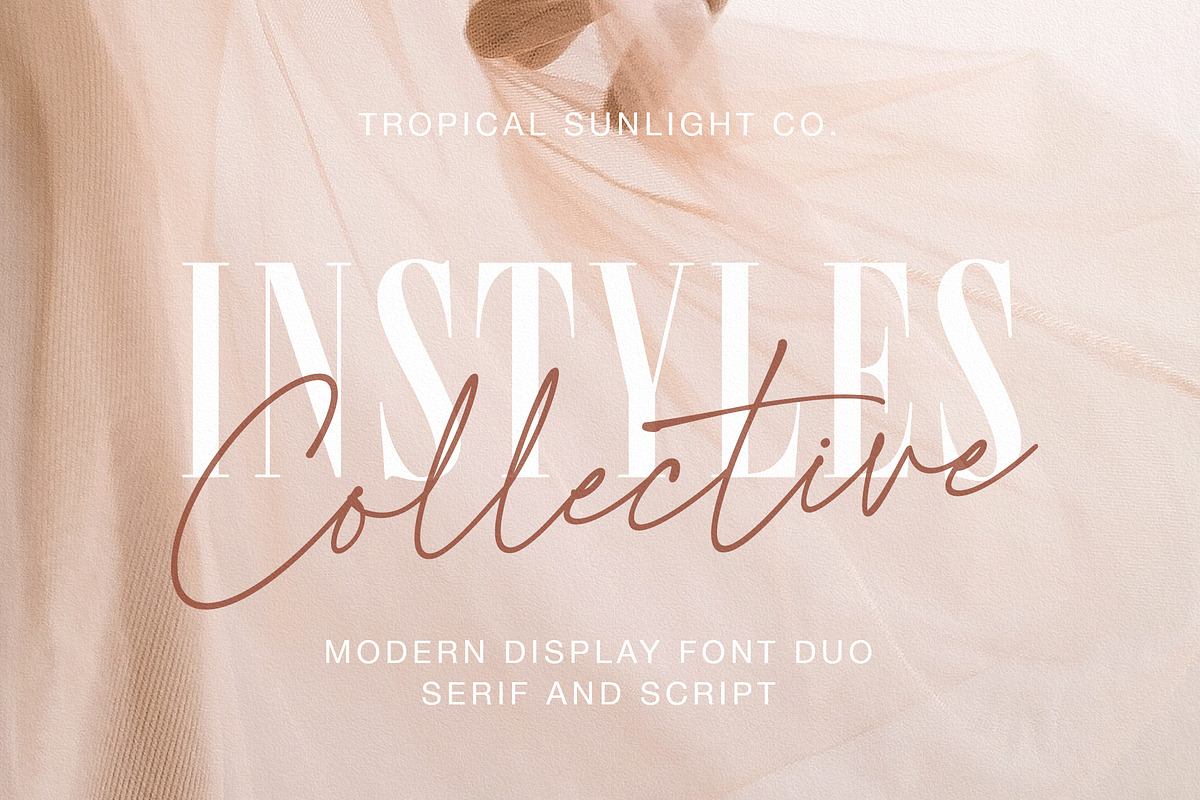
Instyles Collective - Modern Font Free Download
Instyles Collective - Modern Font Free Download is a sleek, contemporary typeface designed to bring sophistication and clarity to your designs. With its clean lines and minimalist aesthetic, this modern font is perfect for a variety of applications, including branding, logos, websites, and promotional materials. Its bold yet refined look makes it ideal for professional and creative projects, allowing your text to stand out with style. Whether you're designing for a tech startup, fashion brand, or personal portfolio, Instyles Collective - Modern Font Free Download lets you experiment with its modern flair in personal projects before purchasing a commercial license. Elevate your designs with a typeface that embodies the essence of modern elegance and timeless simplicity.